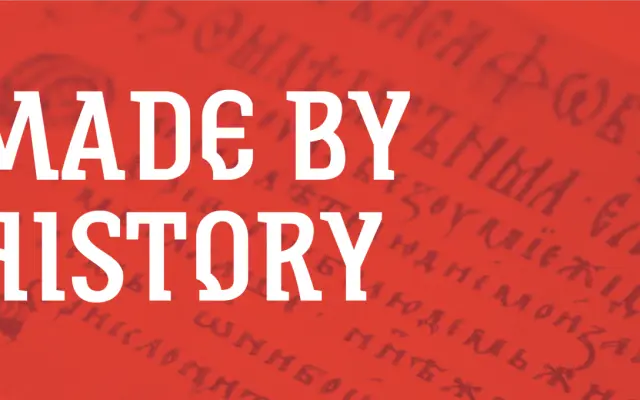
Slovic
A Cyrillic display family by Plamen Motev that traces a stylistic arc from Old Church Slavonic scripts through to a clean sans-serif, all within one family.
Drawing on Ustav (Cyrillic uncial) and Vyaz (ornate lettering), the six-style family moves through historic, serif, slab, semi-serif and sans-serif forms, with a variable font tying the progression together. It covers Extended Latin and Cyrillic, with OpenType features and stylistic sets suited to heritage branding, book covers and cultural event material. The concept of a single family spanning such a wide stylistic range is unusual and gives designers a built-in contrast system rooted in Slavic typographic history.
Slovic is a display family rooted in Old Church Slavonic scripts such as Ustav and Vyaz, progressing stylistically through historic, serif, slab, semi-serif and sans-serif forms, making it primarily a display type system with historical and decorative intent.